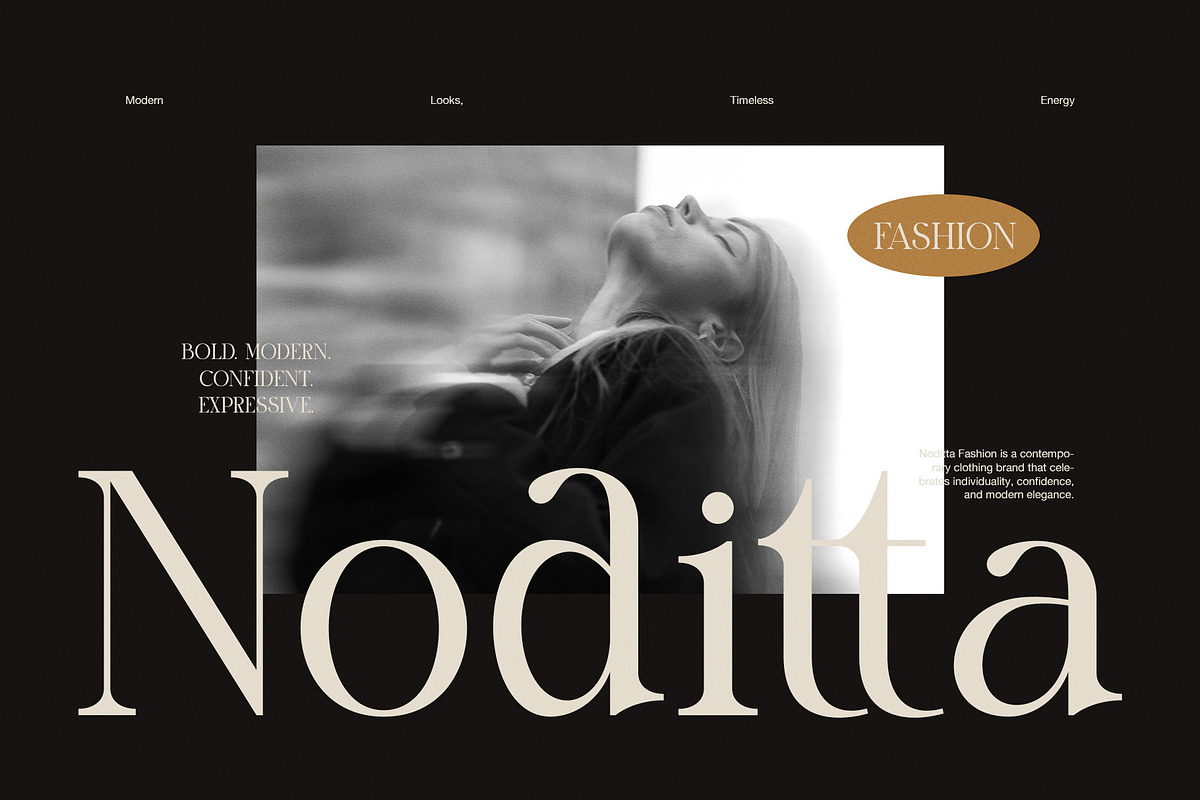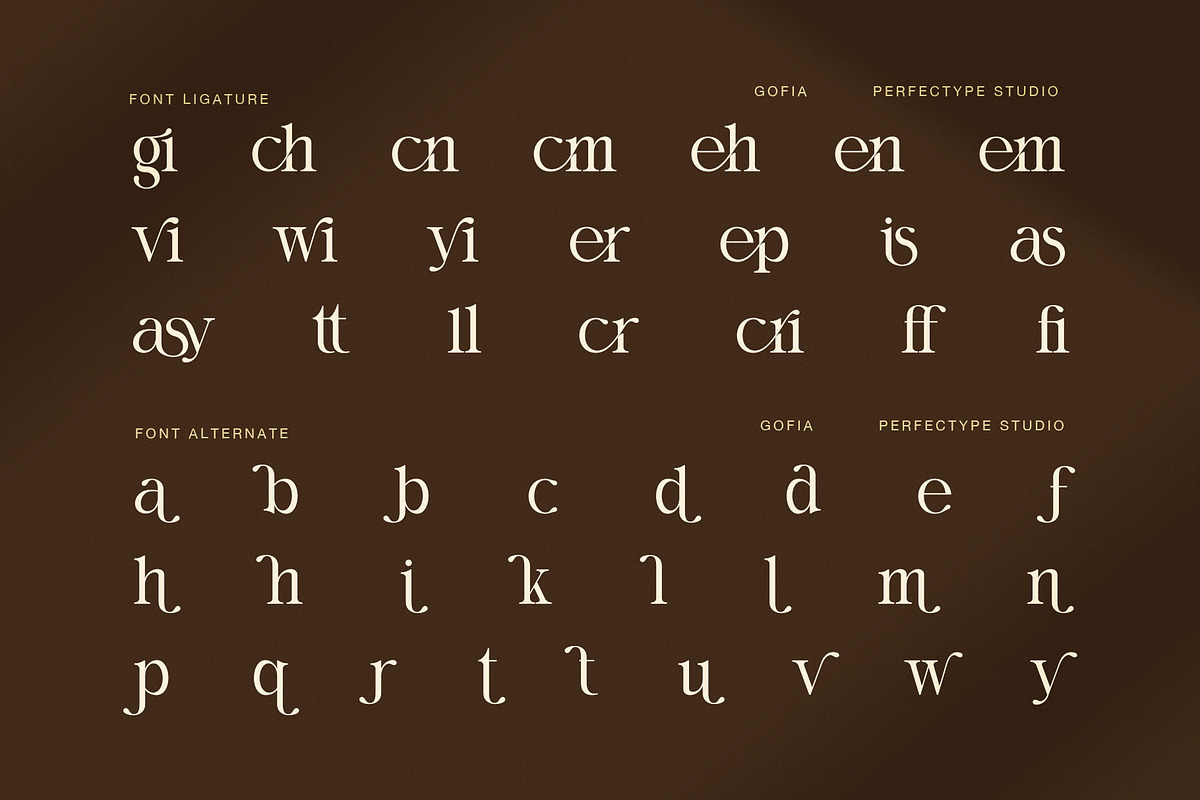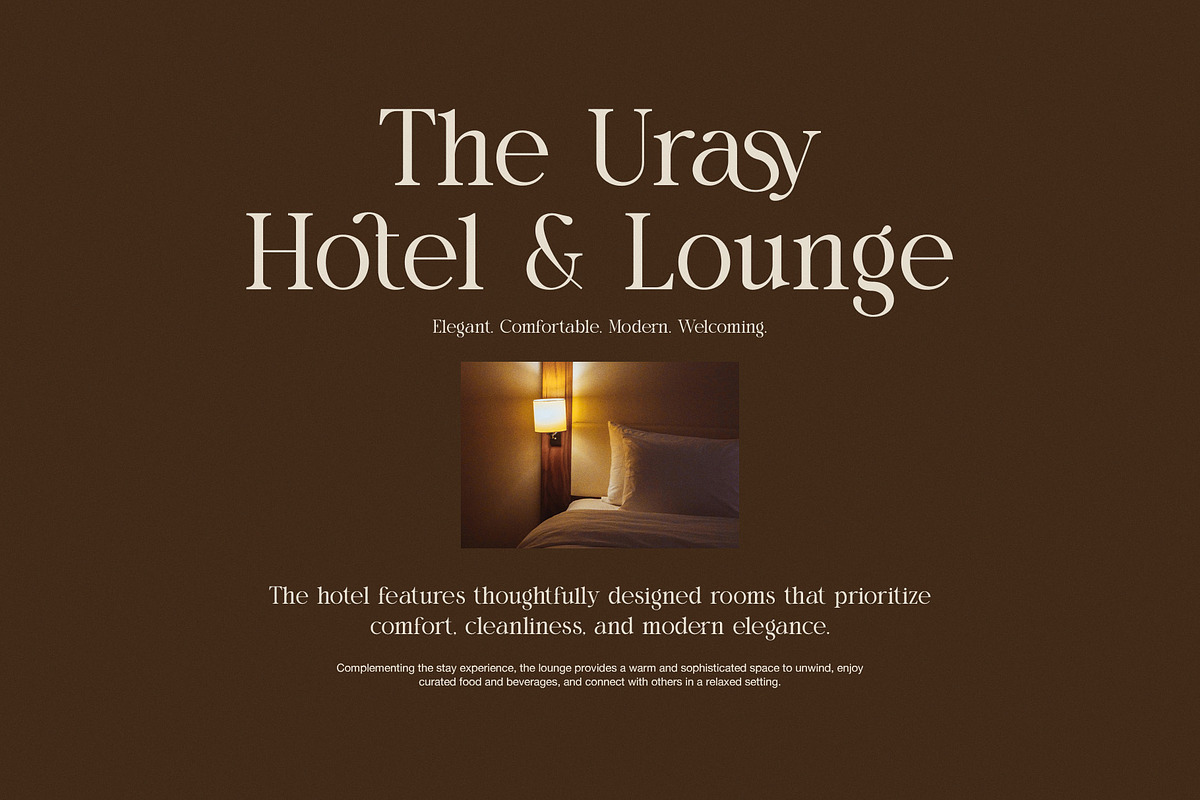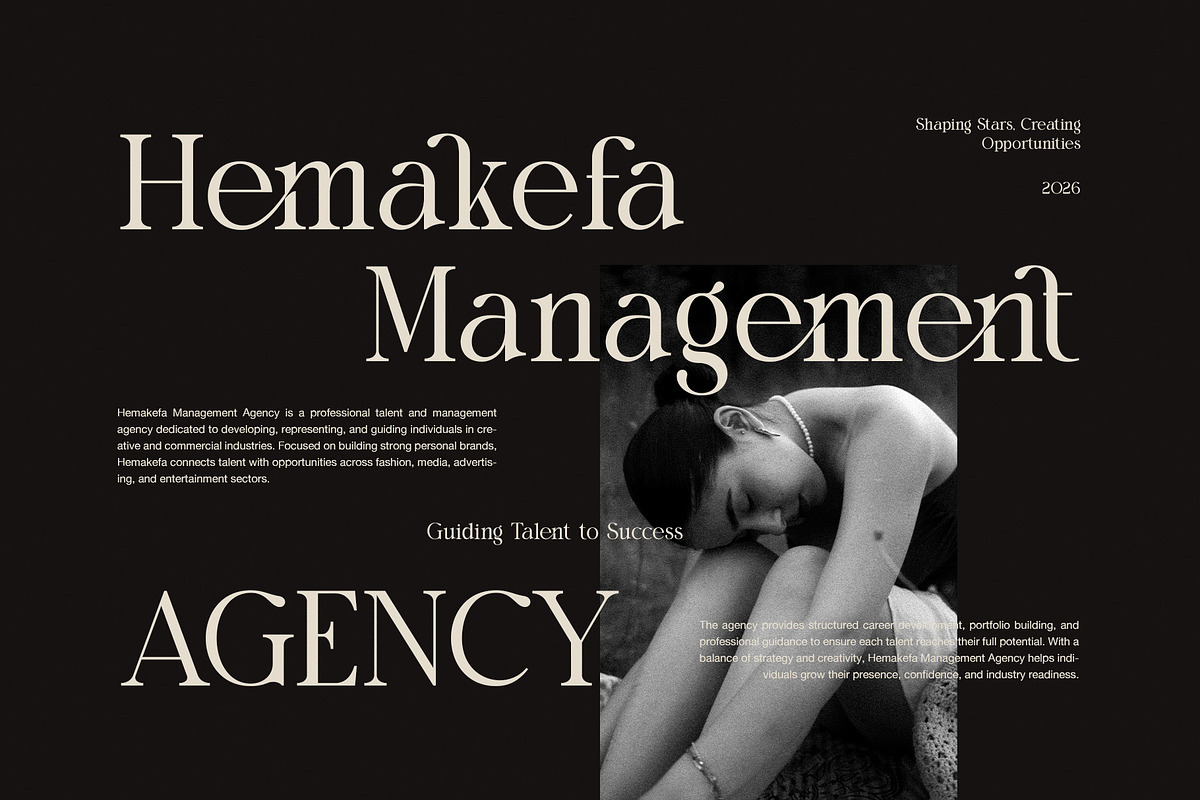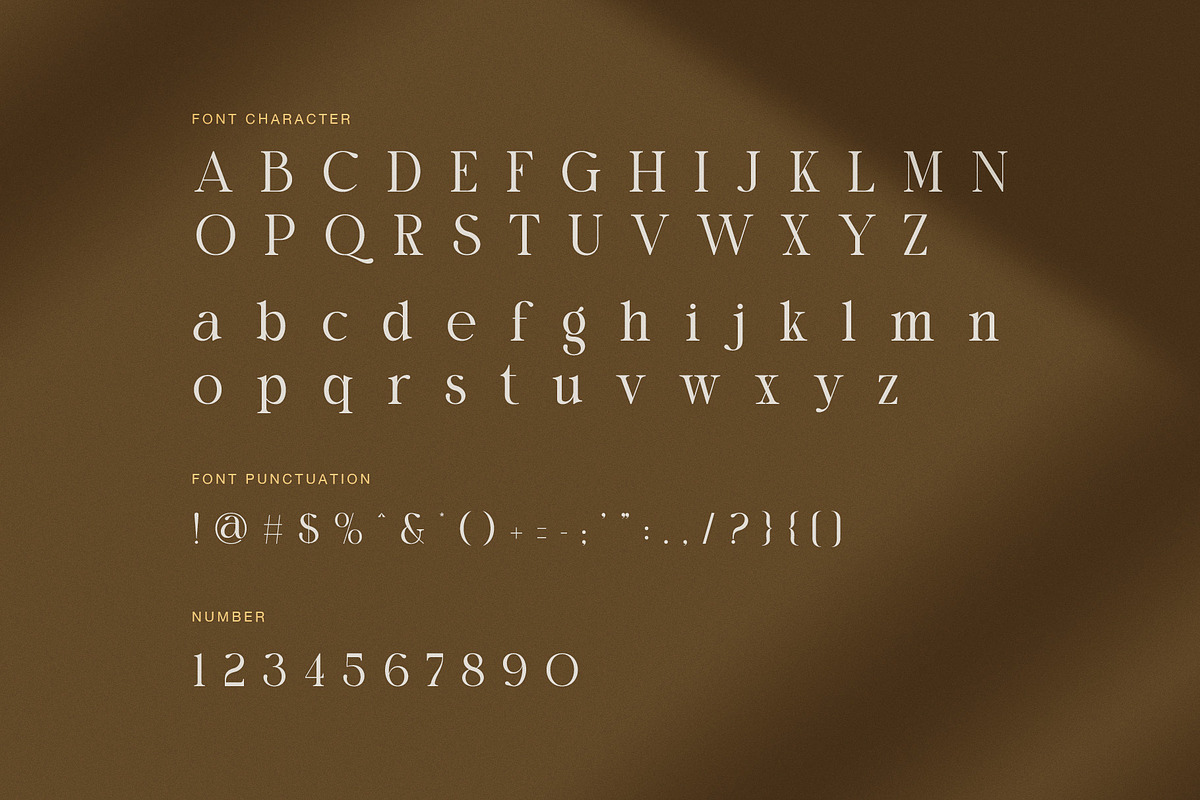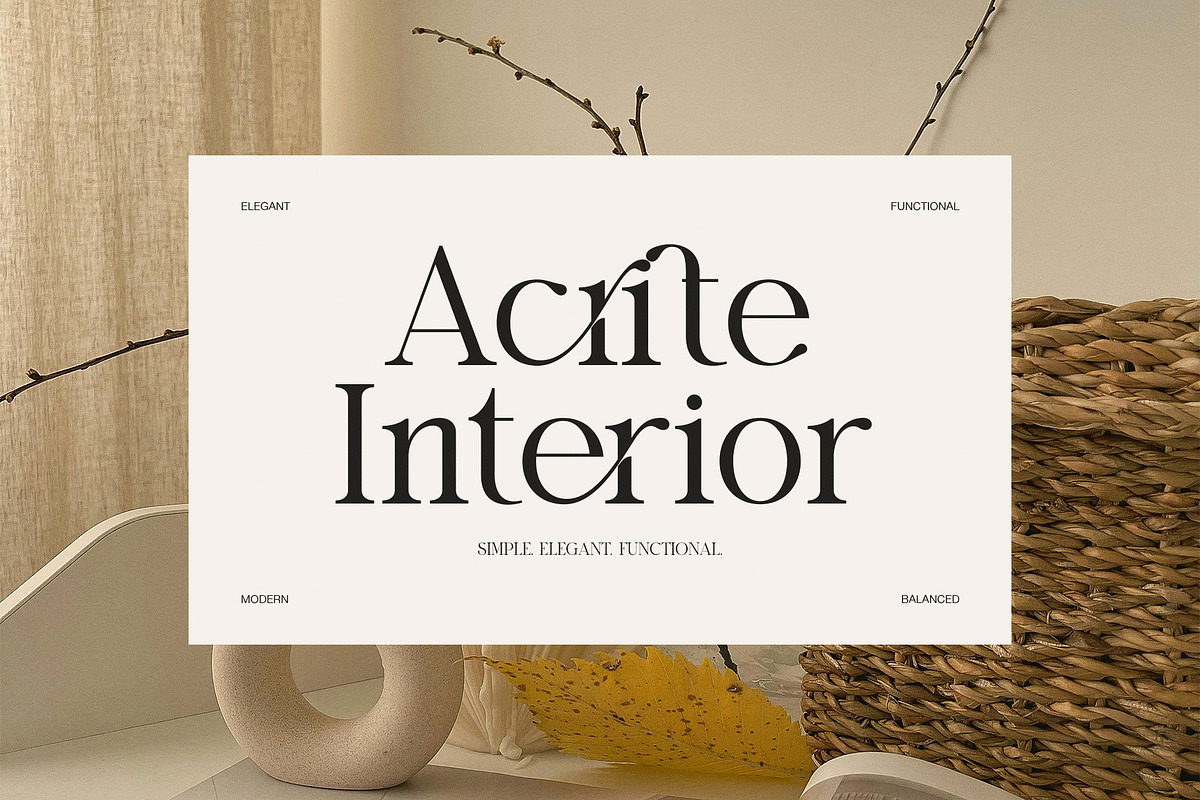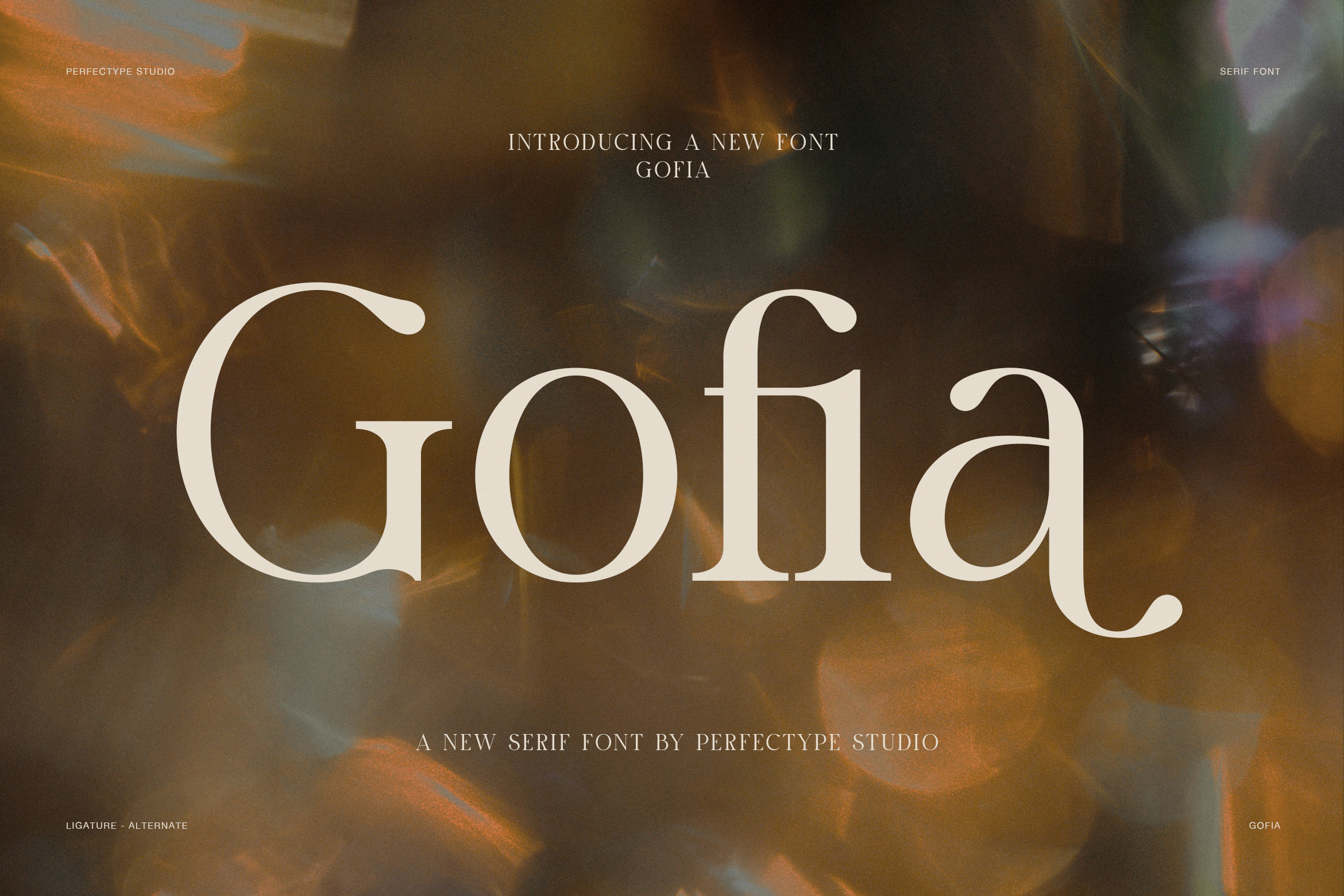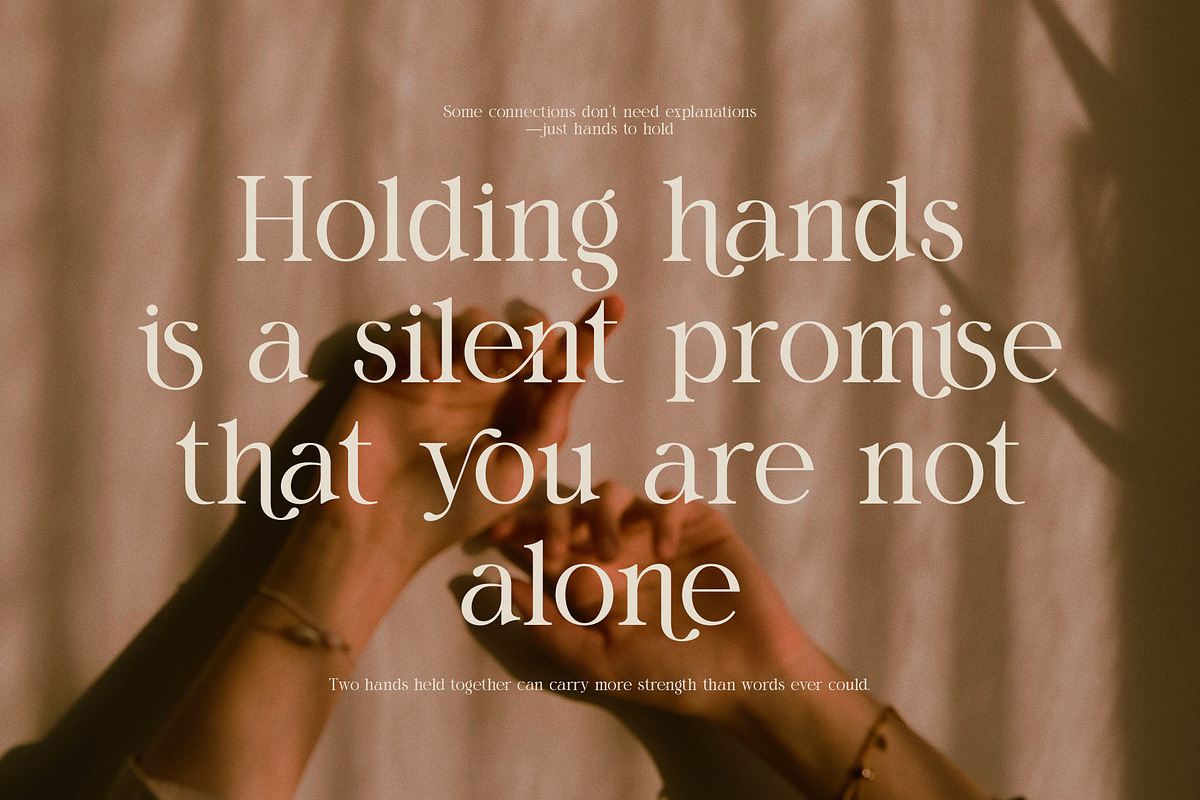
Gofia – Modern Elegant Serif Font
Gofia is a modern elegant serif font made for designers who want a bold look with a soft, stylish touch. Its high contrast, fine hairlines, strong stems, and smooth curves give each letter a clean fashion feel. At the same time, its rounded details and unique terminals add a fresh visual voice.
Designed for display use, Gofia looks best in large titles, logos, brand names, and short statements. Therefore, it can make a simple layout feel more refined without adding extra design elements. The wide letter shapes also give headlines a strong presence, while the thin strokes keep the overall look light and graceful.
Gofia includes stylish ligatures that join selected letters in a natural way. As a result, you can create a more custom look for names, titles, and key words. In addition, the font offers alternate lowercase letters, giving you more ways to shape your type. You can switch between standard and alternate forms to build a look that feels more personal.
Modern high-contrast serif style
Elegant and fashion-focused letter shapes
Stylish ligatures for custom lettering
Alternate lowercase characters
Uppercase and lowercase alphabets
Numbers and useful punctuation
Strong display impact at large sizes
Clean forms for branding and print
Suitable for digital and print projects
Because of its mix of bold forms and fine details, Gofia works well across many creative fields. For example, use it for fashion logos, beauty brands, editorial covers, luxury packaging, wedding designs, hotel branding, and lifestyle campaigns. It can also add a polished feel to posters, social media graphics, websites, menus, and product labels.
Moreover, Gofia is a strong choice when you need type that feels modern but still has a classic serif base. Its curved strokes bring warmth, while its sharp contrast adds style and energy. Meanwhile, the ligatures and alternate letters help you create layouts that do not look plain or repeated.
Whether you are building a premium identity or a striking headline, Gofia gives your design a clear visual focus. Therefore, it is a useful serif typeface for designers who value elegance, fashion, and creative detail. Use Gofia to bring a confident, stylish, and memorable finish to your next project.